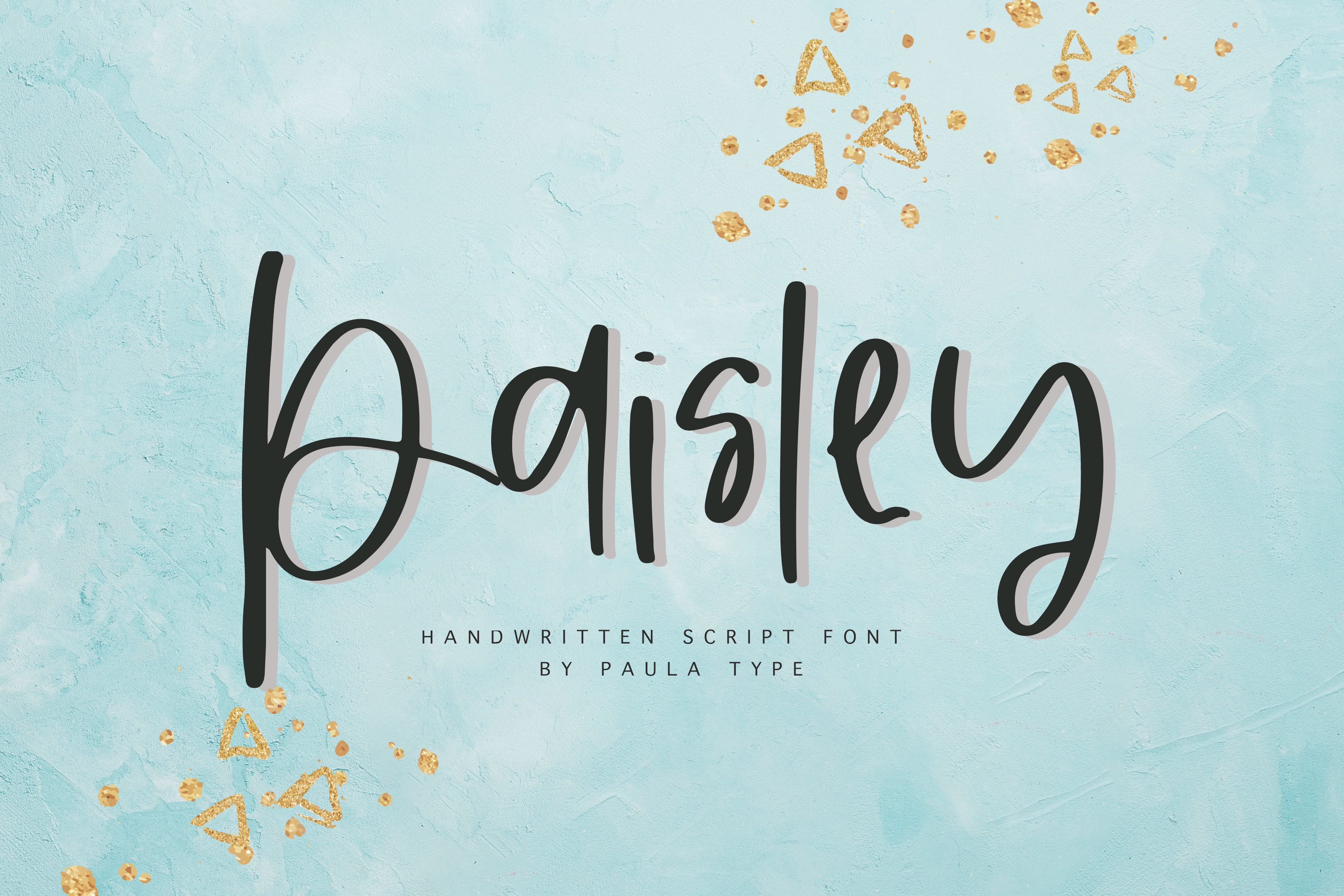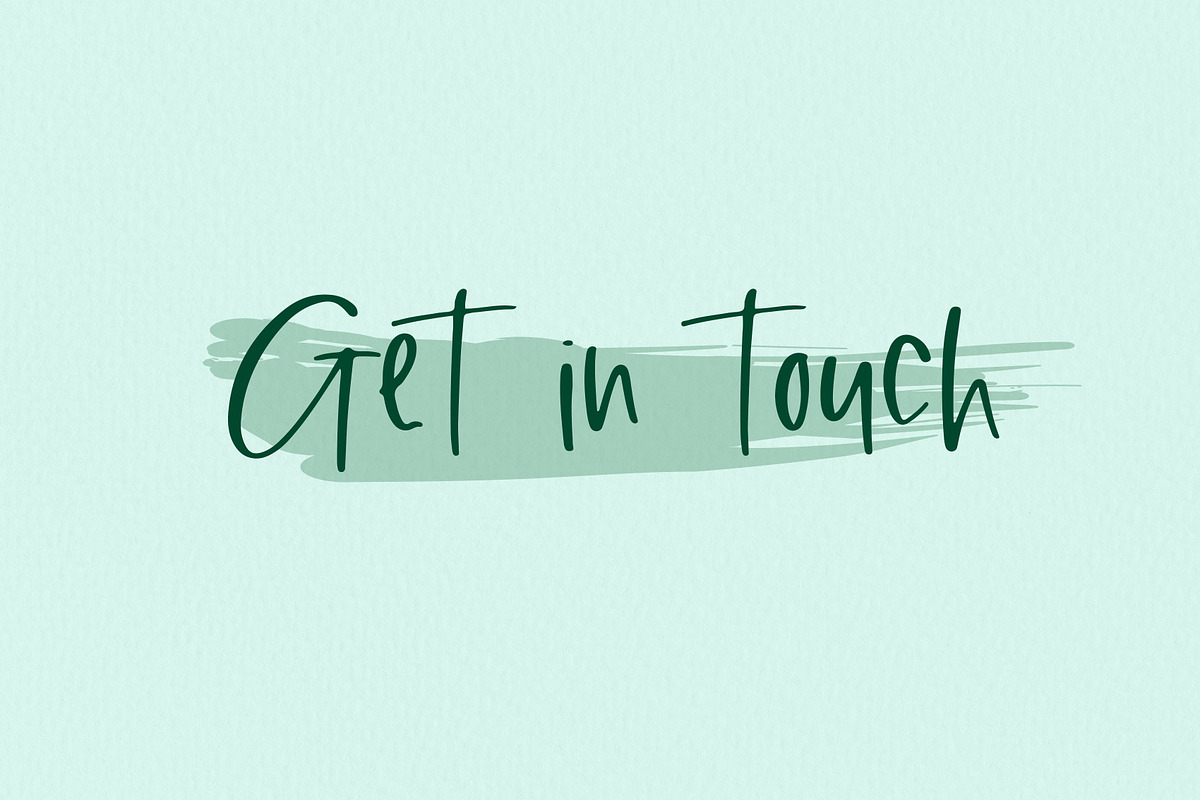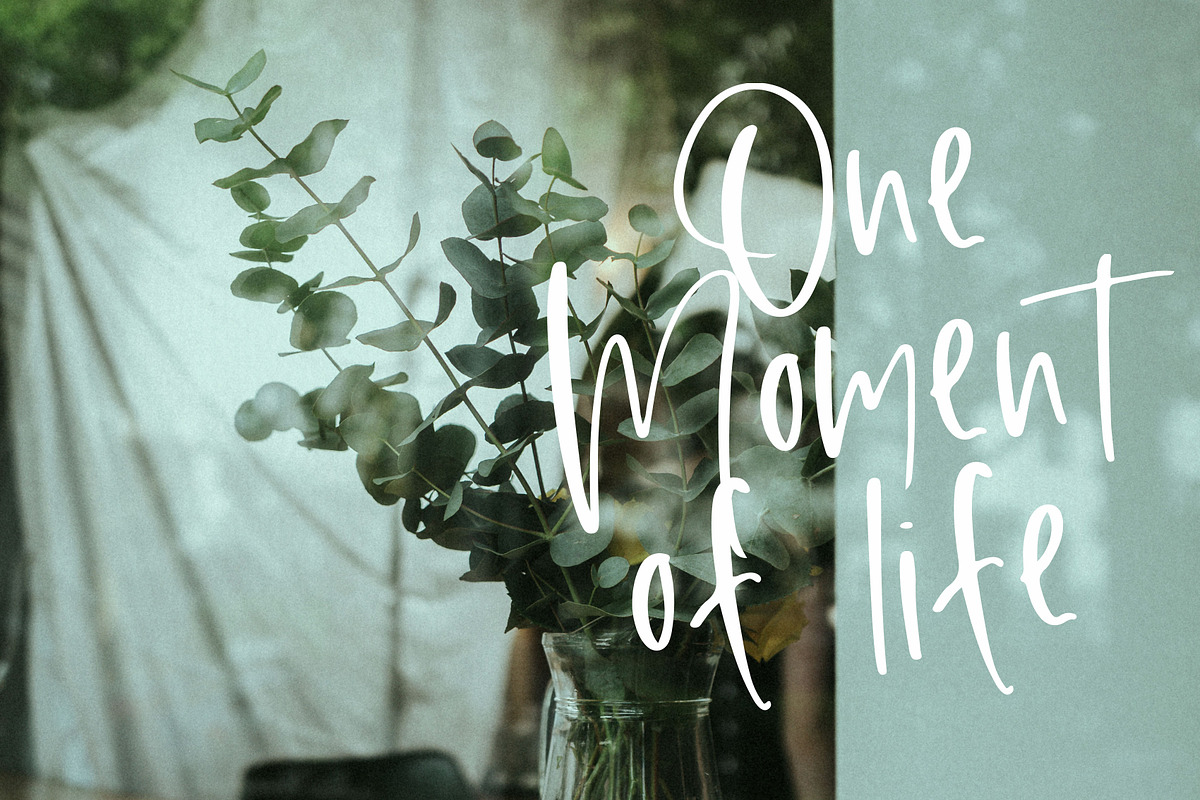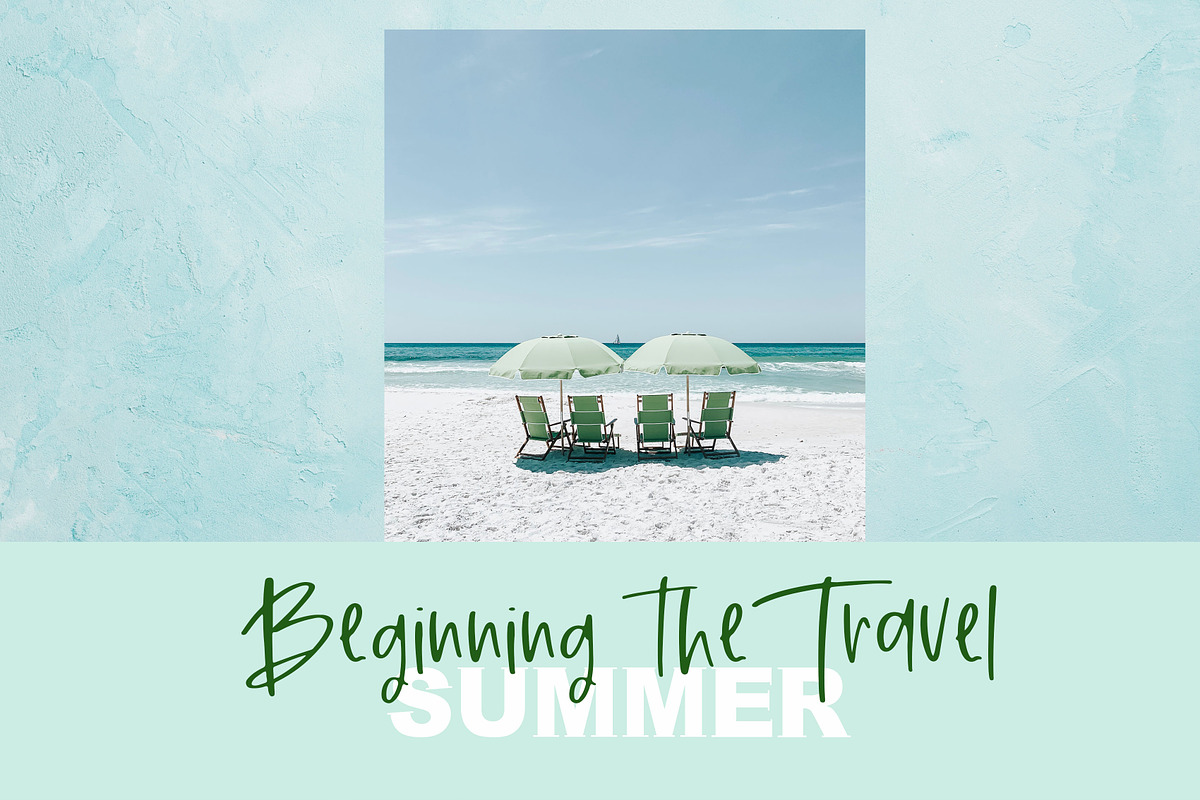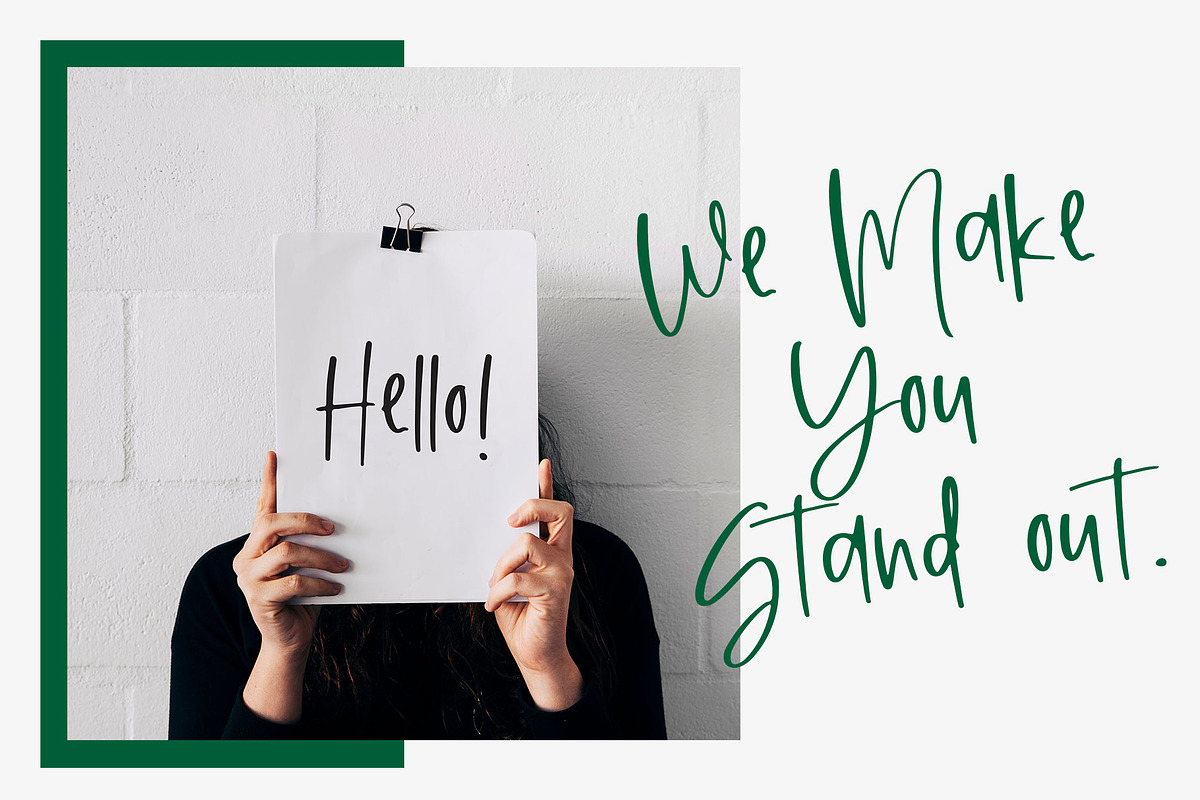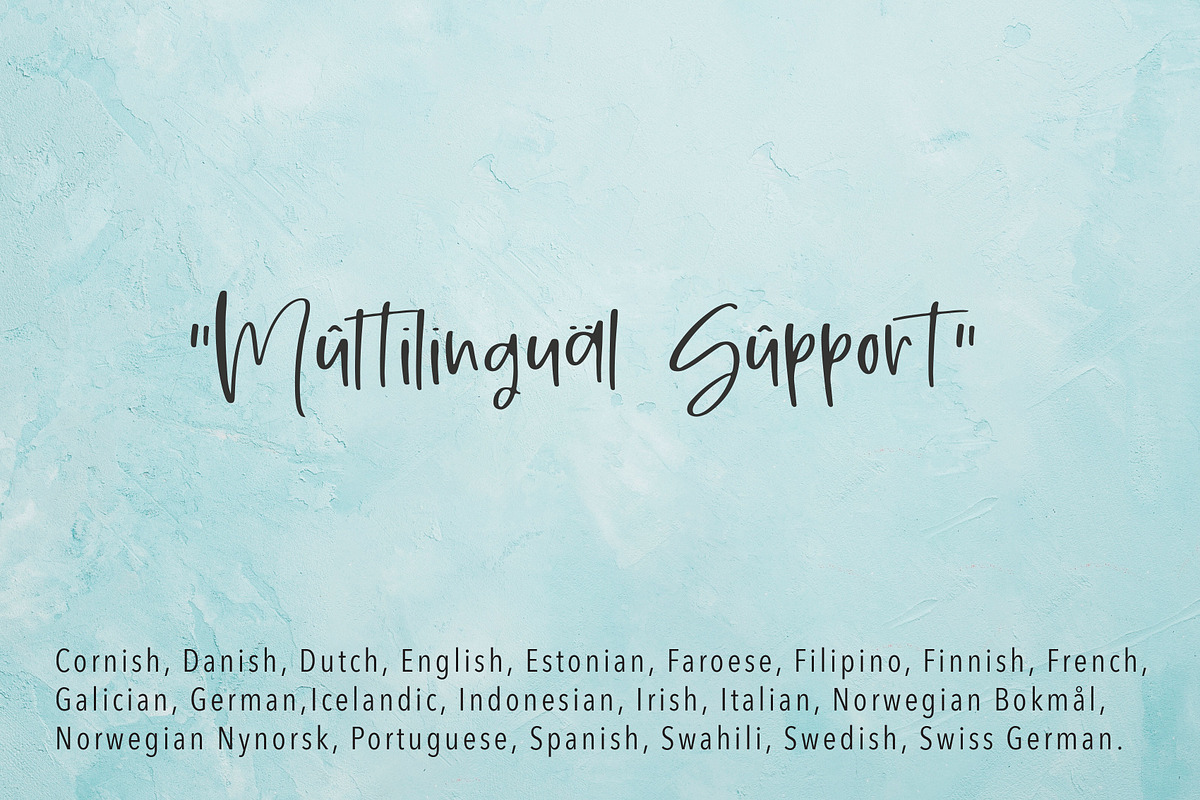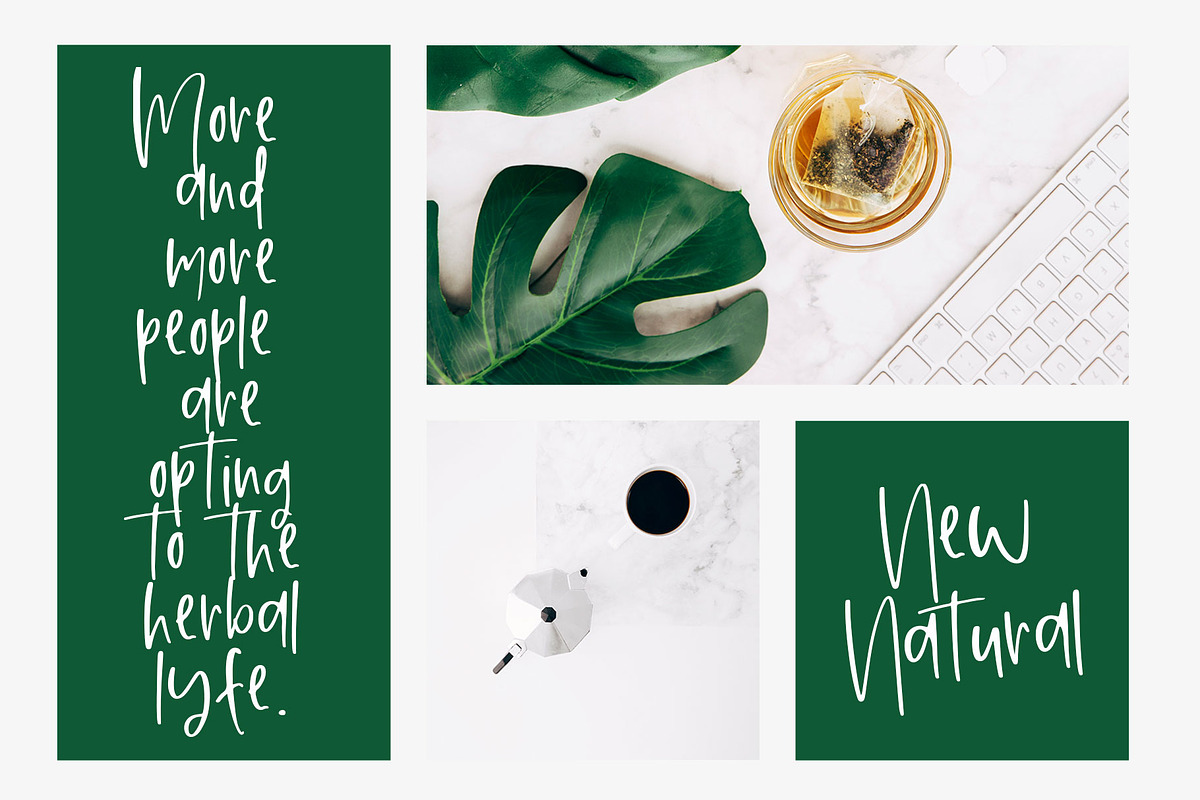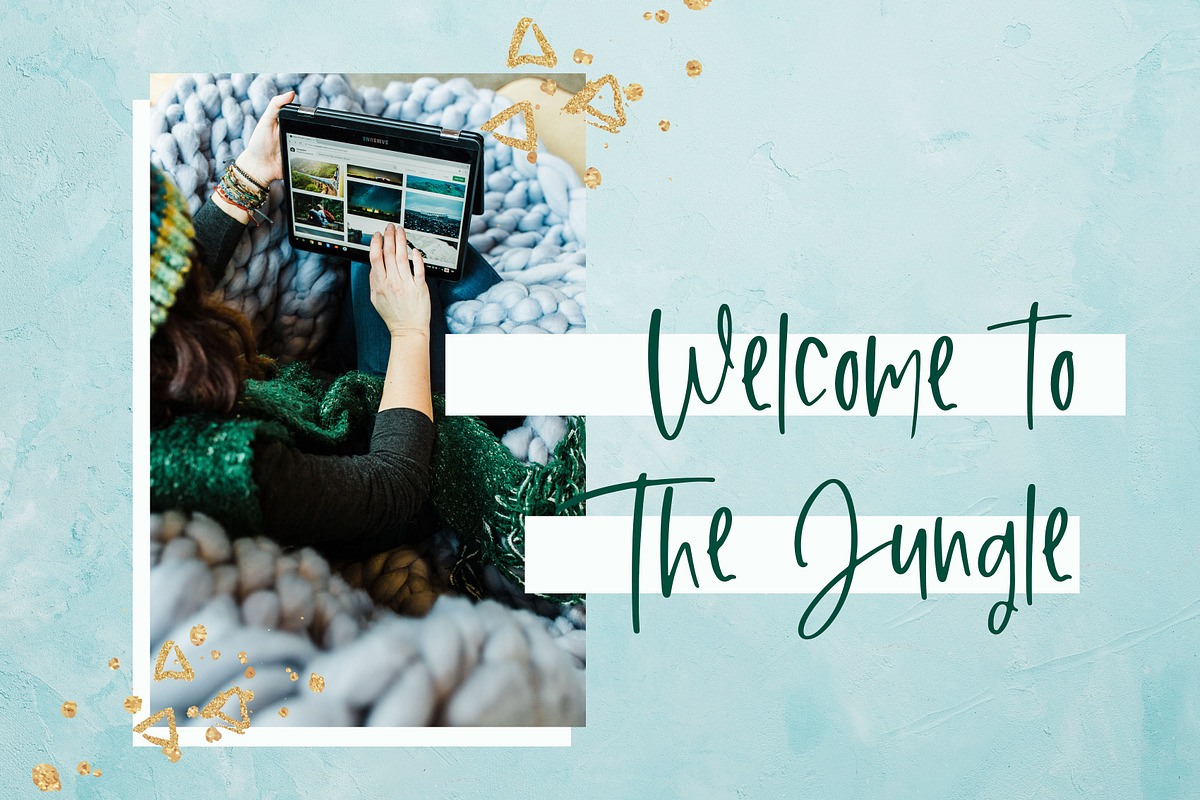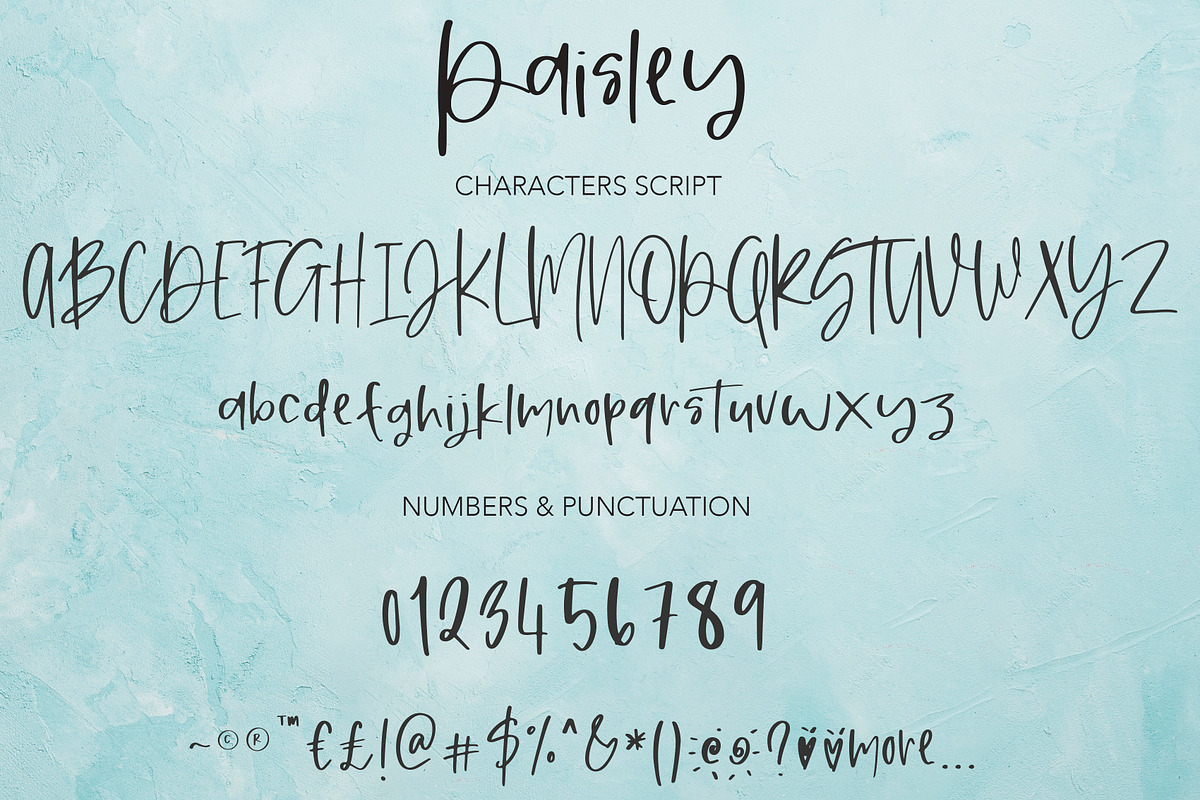
Paisley | Handwritten Font
Introducing Paisley - A Chic and simple font perfect This font that looks absolutely handwritten and created by hand. This handwritten font is ideal for branding and decorates your any project.
Every single letter has been creative carefully and Perfectly Playful new font pair. This font is a perfect script designed for making your set of invitations, Brand, blog posts, and more completely beautiful
multilingual support for the following languages: Cornish, Danish, Dutch, English, Estonian, Faroese, Filipino, Finnish, French, Galician, German, Icelandic, Indonesian, Irish, Italian, Norwegian Bokmål, Norwegian Nynorsk, Portuguese, Spanish, Swahili, Swedish, Swiss German.